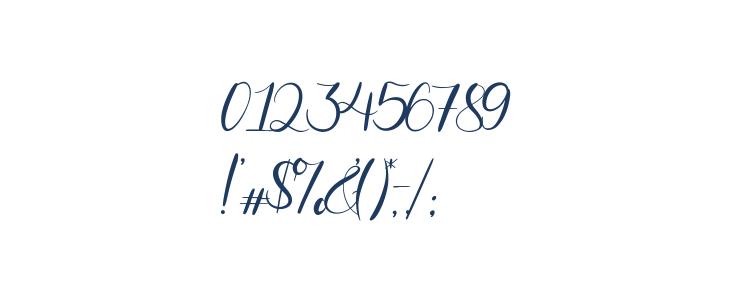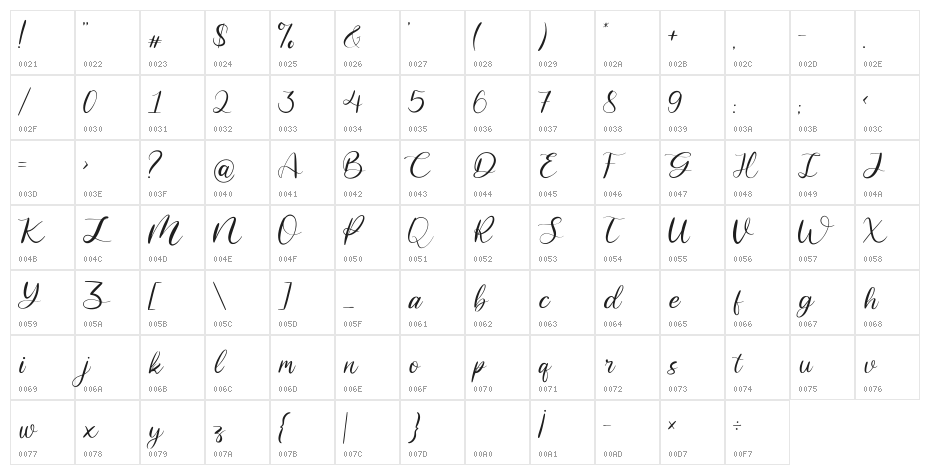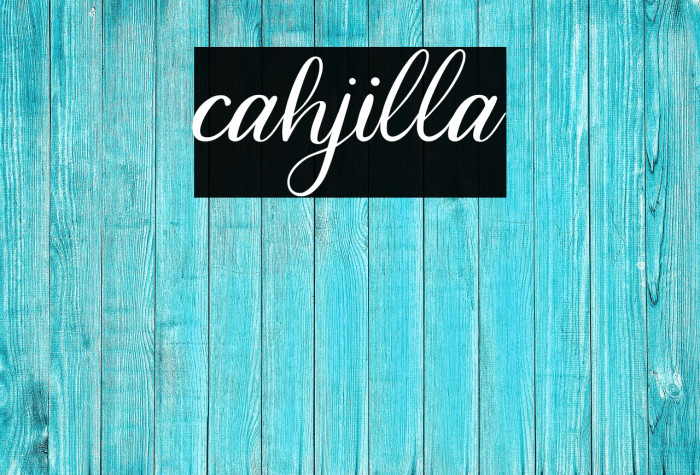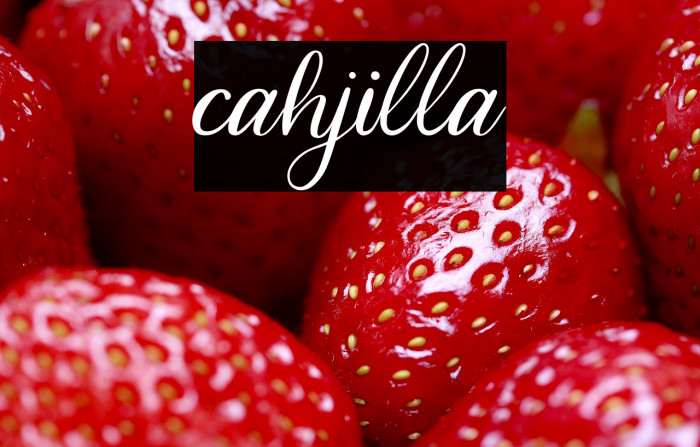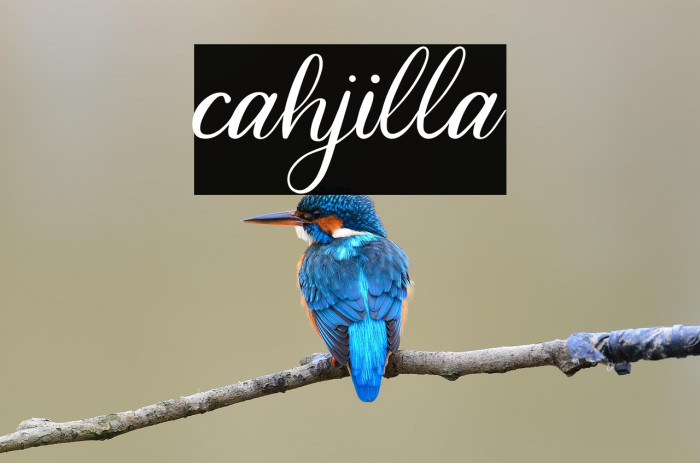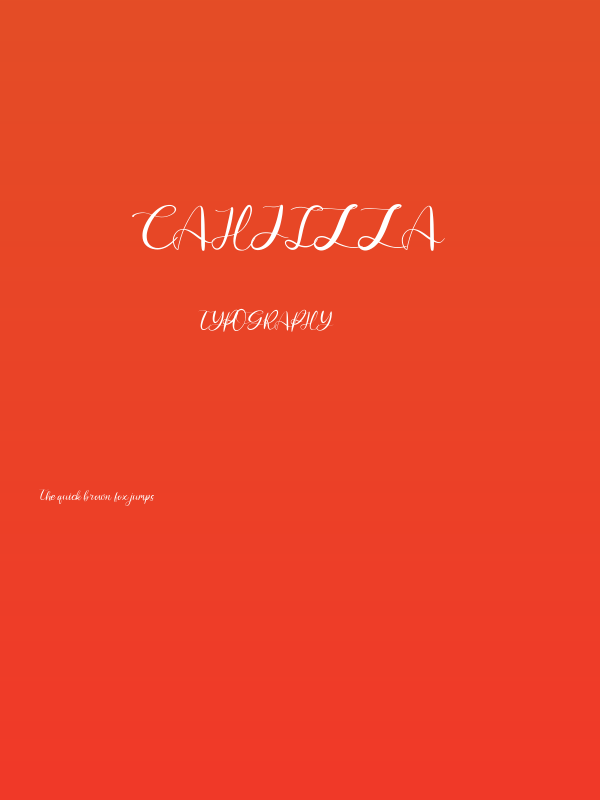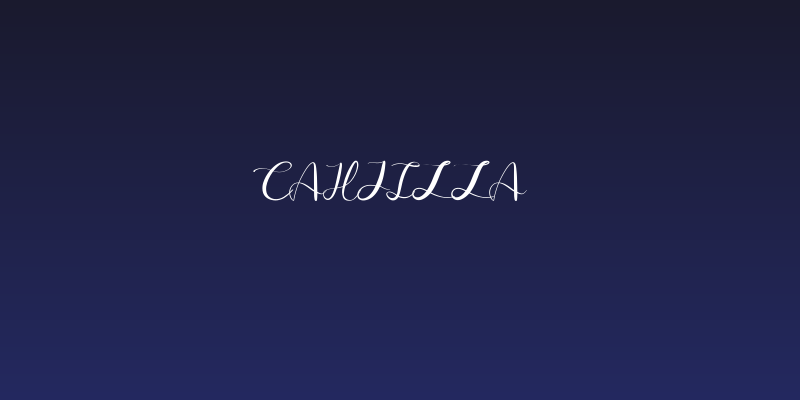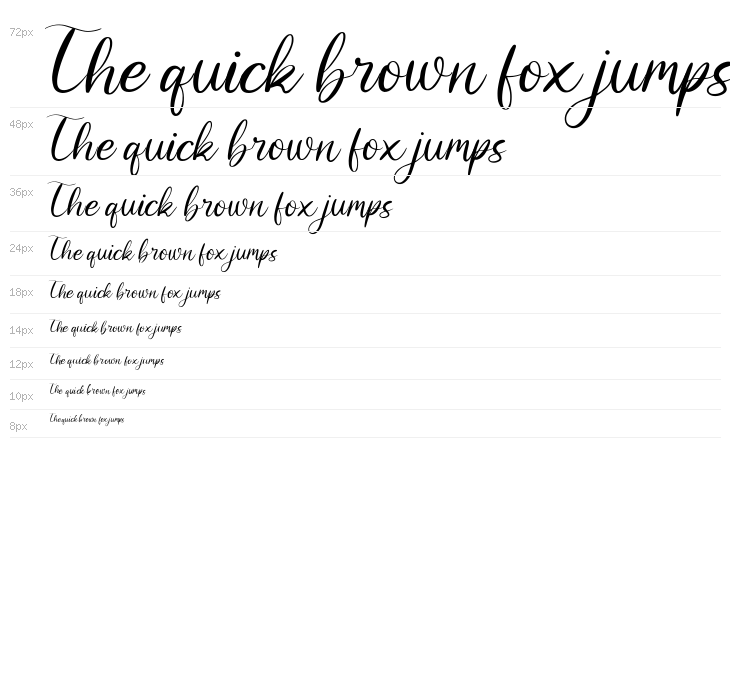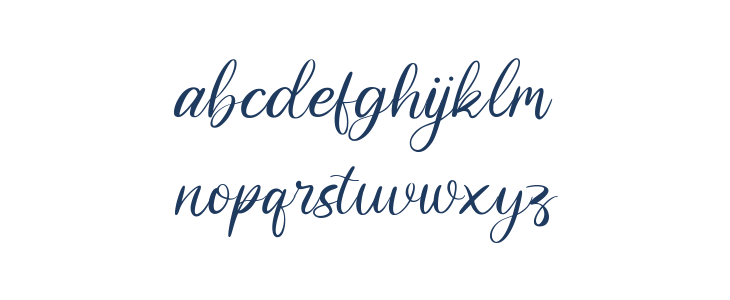
cahjilla Font
cahjilla Description
This font features an elegant, flowing script style with a modern touch. The characters are interconnected with smooth, sweeping curves that give it a sophisticated and artistic appearance. The uppercase letters are particularly ornate, with intricate loops and flourishes that add a decorative flair. The lowercase letters maintain a consistent style, with a slightly more restrained design that enhances readability. The numerals and special characters are crafted with the same attention to detail, ensuring a cohesive look across all elements. This font's graceful and stylish design makes it ideal for projects that require a touch of elegance and creativity.